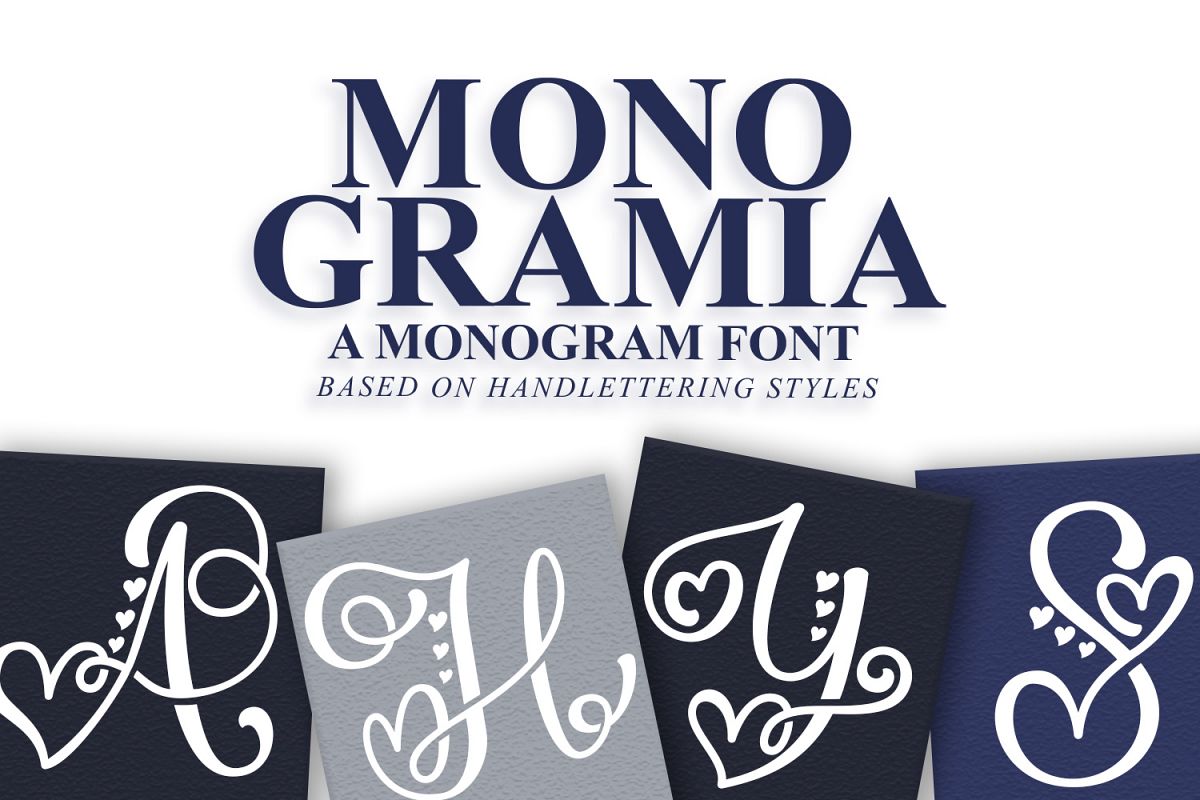
Monogramia
Monogramia is a handlettered font perfect for monograms. Use the letters to create your own monograms, or simply use them as part of your projects to make them stand out from the crowd!